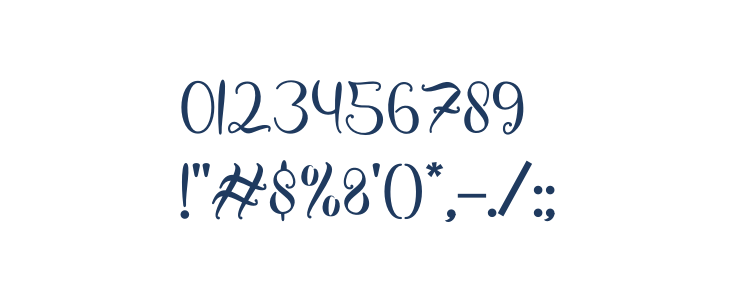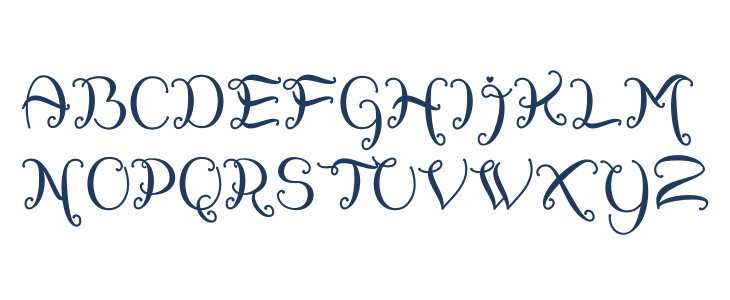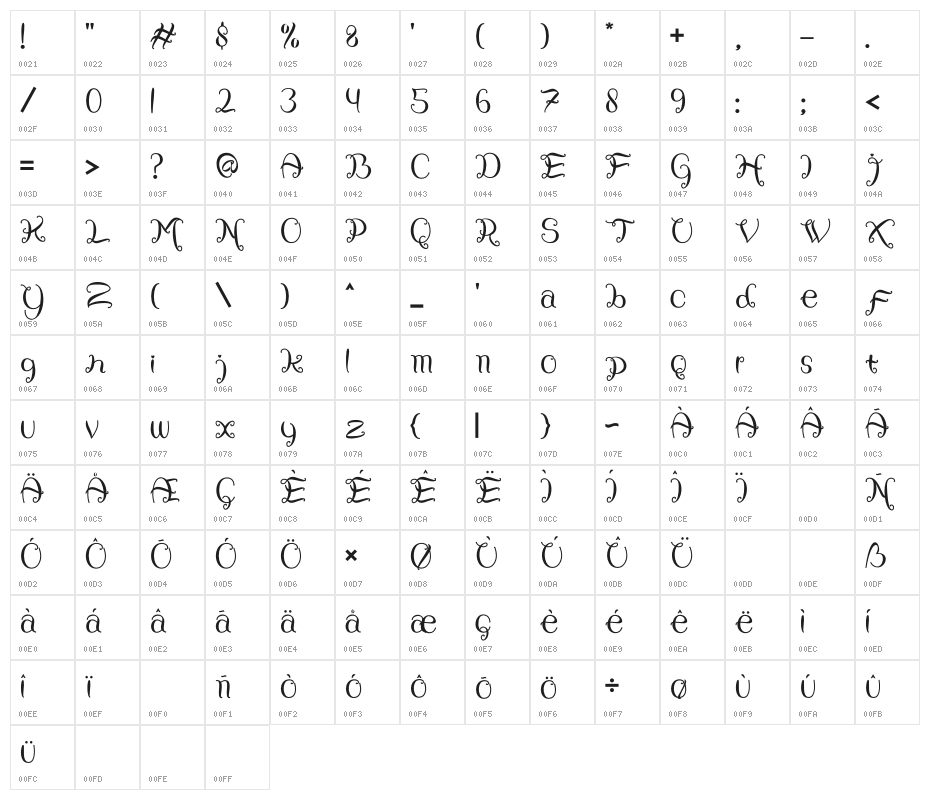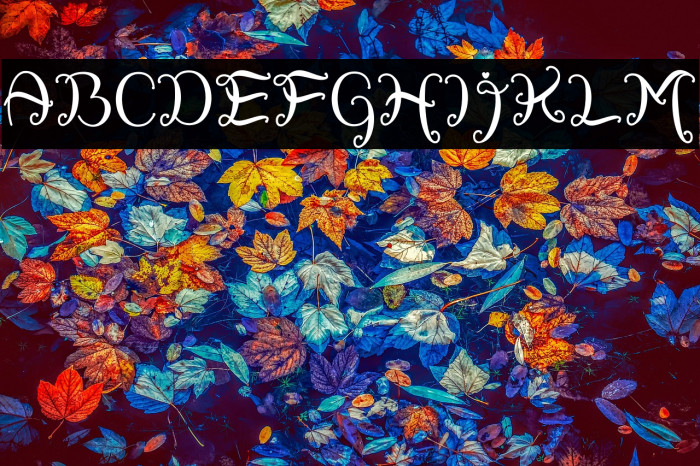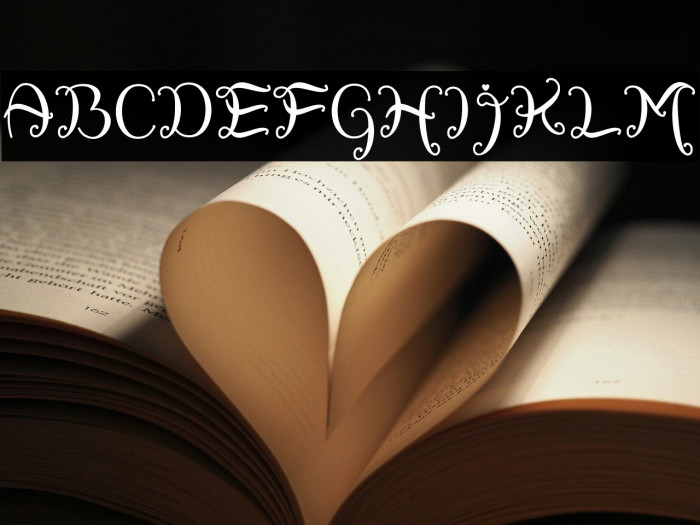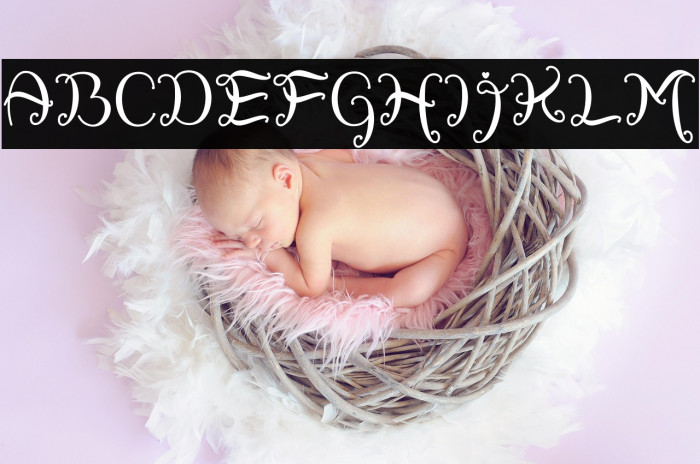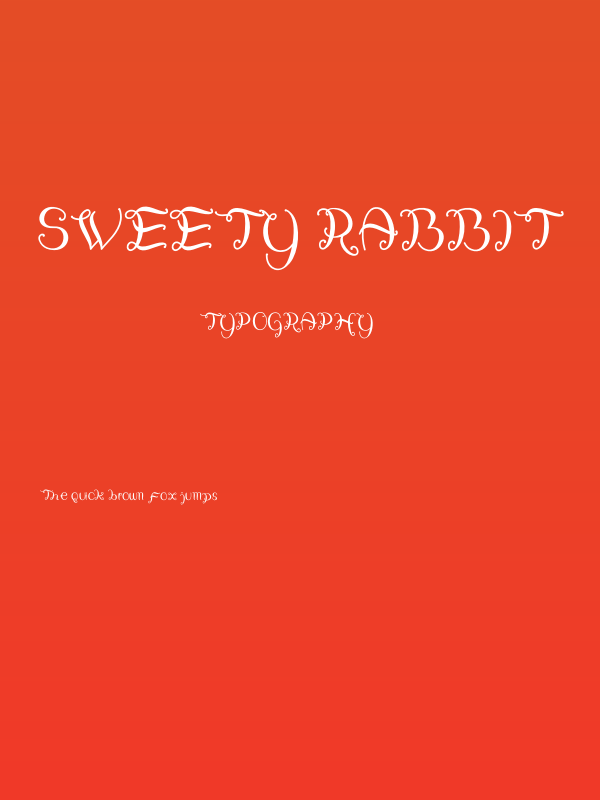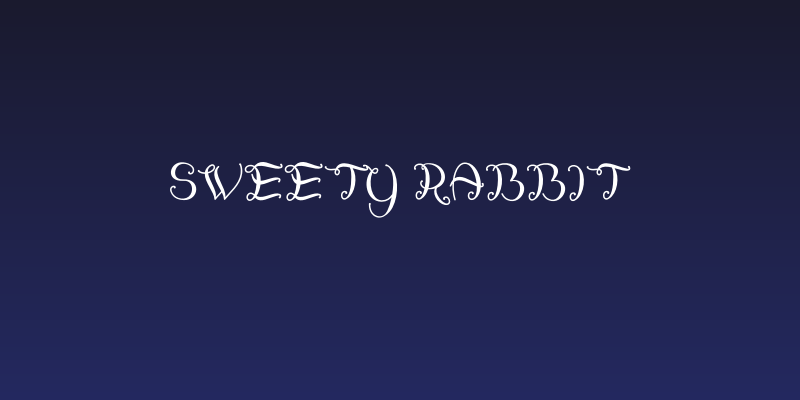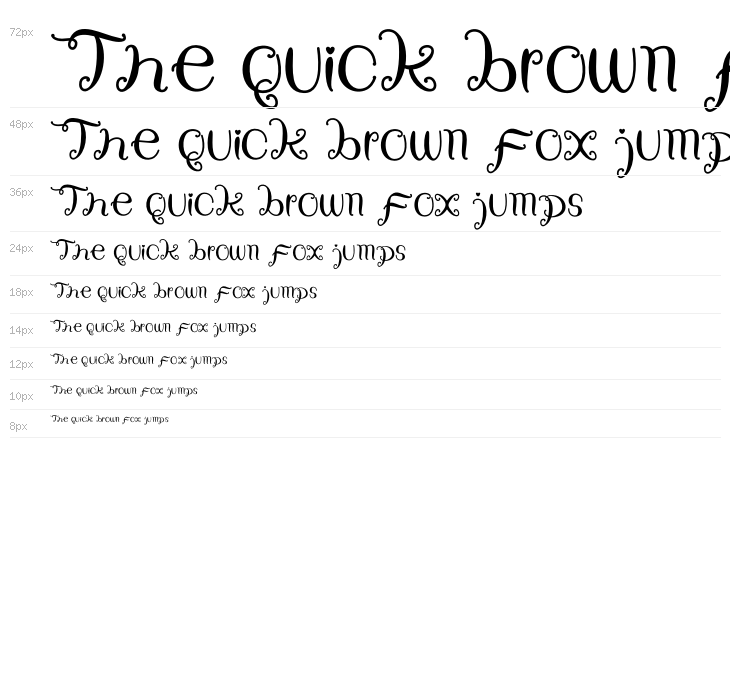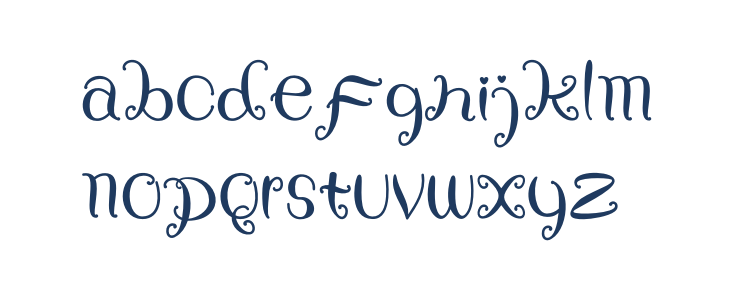
Sweety Rabbit Font
A whimsical, decorative script font featuring curly, playful strokes with heart-shaped and swirl embellishments on many characters, creating a charming and cute appearance.
| Overall Style | Playful, Cute, Decorative |
| Use Case | Headlines, Logos, Invitations, Greeting Cards |
| Proposed Projects | Ideal for children's books, greeting cards, invitations, party decorations, and playful branding. |